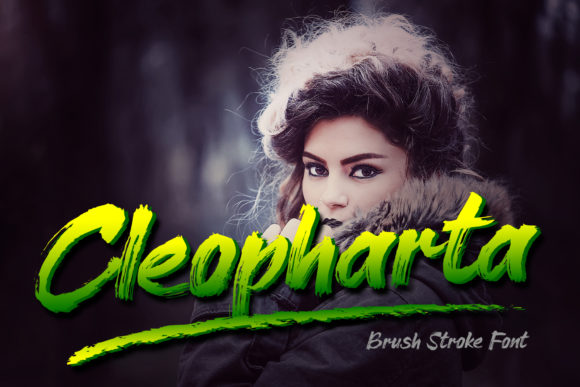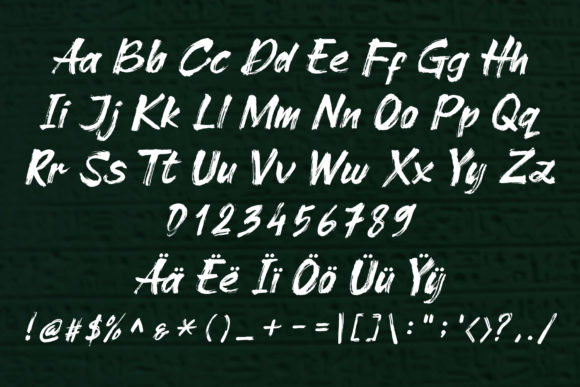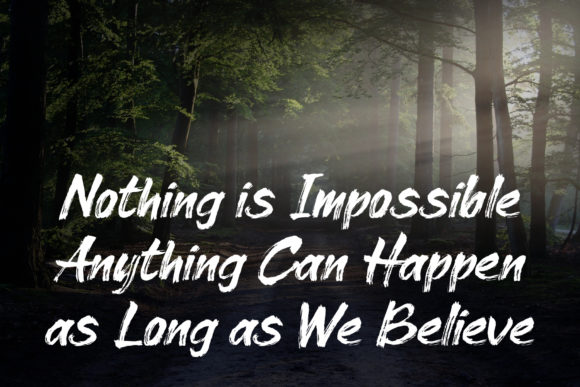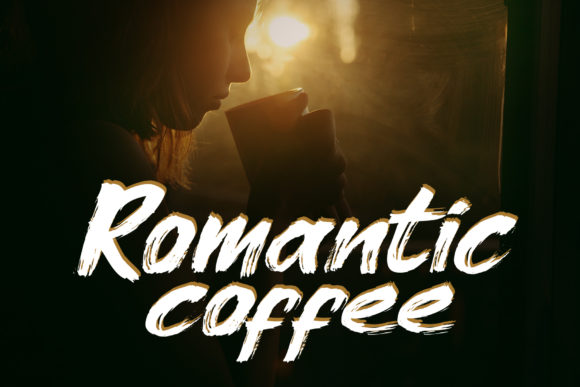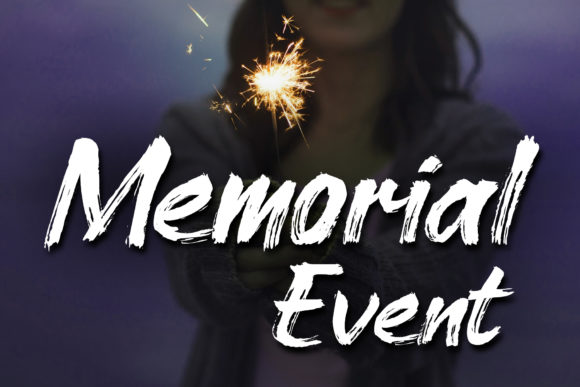
HomeScript FontsCleopharta Font Script Fonts Cleopharta Font FacebookXPinterestWhatsApp Cleopharta Font Poster 2 Cleopharta Font Poster 3 Cleopharta Font Poster 4 Cleopharta Font Poster 5 About Cleopharta Font Cleopharta font is a smooth brush handwritten font with a wild feel. Get inspired by its spontaneous feel! DOWNLOAD ON CREATIVE FABRICAThis font is sold and delivered by Creative Fabrica. Font Canyon may earn a commission if you buy through this link. People also explored Balibong Font Starlink Font Gifolgh Font Nasilla Font Christmas Cold Snow Font Asita Signature Norty Font Dino Zone Font Minimalike Font 300 0 TagsCleopharta Font Previous articleHello Anissta FontNext articleSigarette Font LEAVE A REPLY Cancel reply Comment: Please enter your comment! Name:* Please enter your name here Email:* You have entered an incorrect email address! Please enter your email address here Website: Save my name, email, and website in this browser for the next time I comment. Personal Use Free Ryujin Attack Personal Use Free Read more about this font Dandelions Bloom Personal Use Free Read more about this font Nulshock Bold Personal Use Free Read more about this font The Brighton Personal Use Free Read more about this font BLOG Modern Sans-Serif Fonts That Brands Love in 2025 In 2025, modern sans-serif fonts remain a top choice for brands looking to project clarity, professionalism, and... How to Install and Use Fonts on Windows, macOS, and Web Projects Free vs Paid Fonts: Why Investing in Premium Fonts Is Worth It Best Fonts for YouTube Videos: Make Your Thumbnails Stand Out